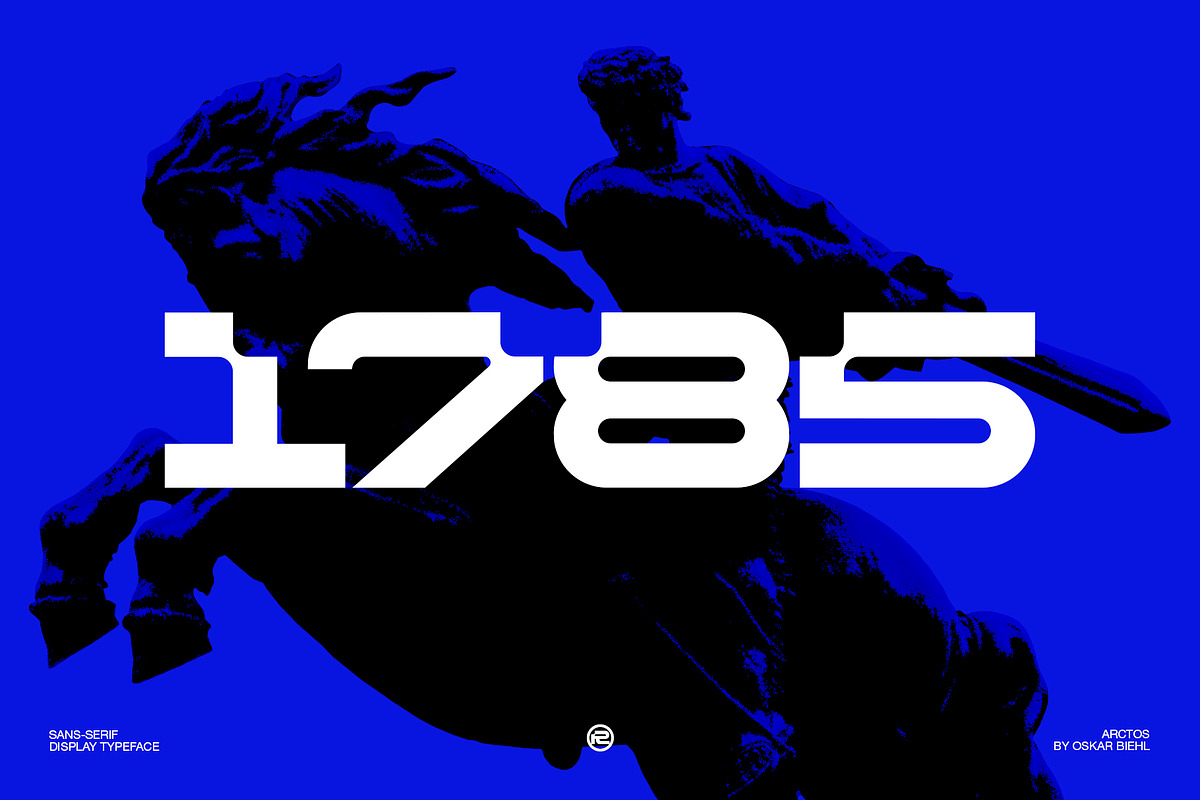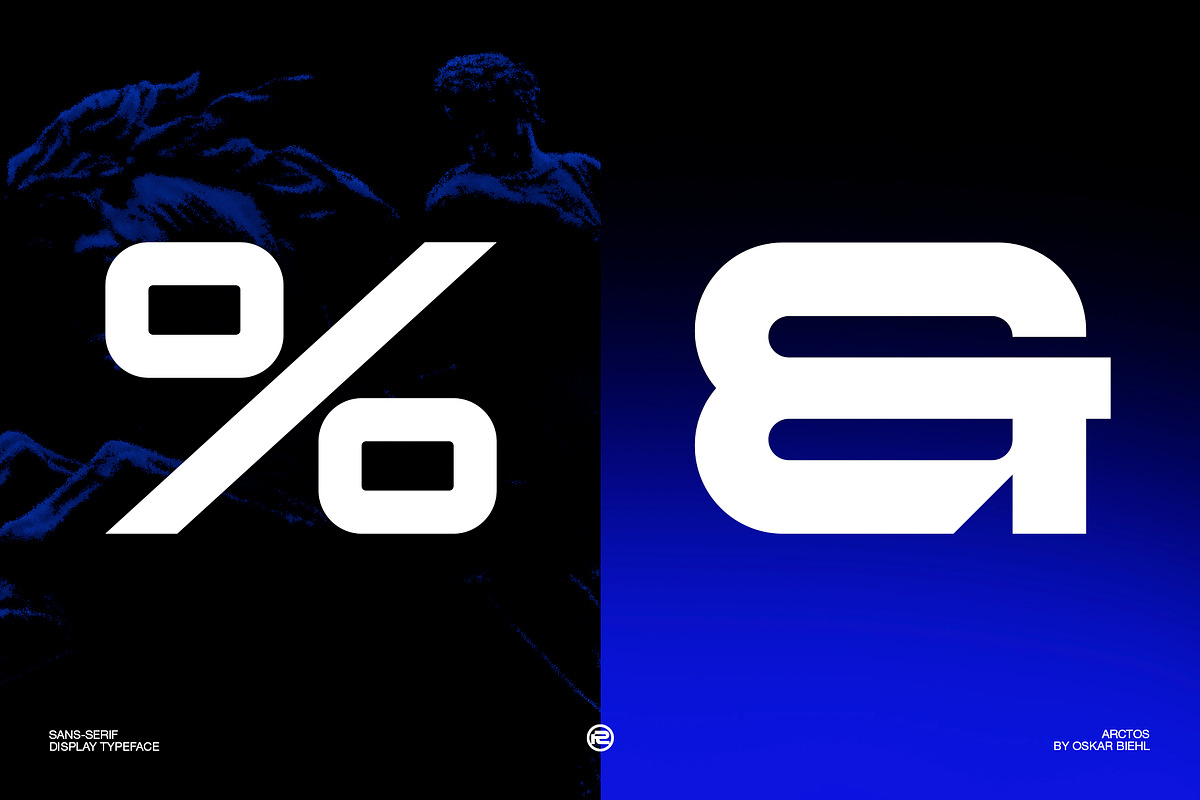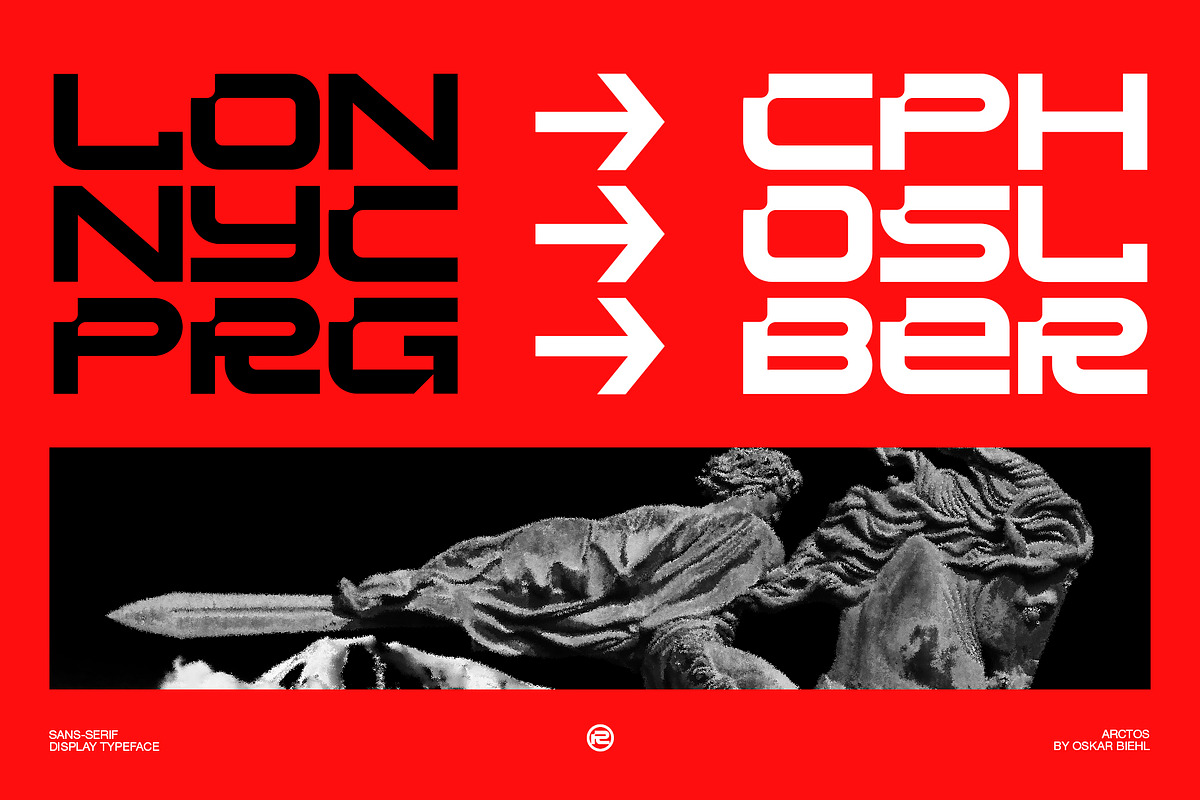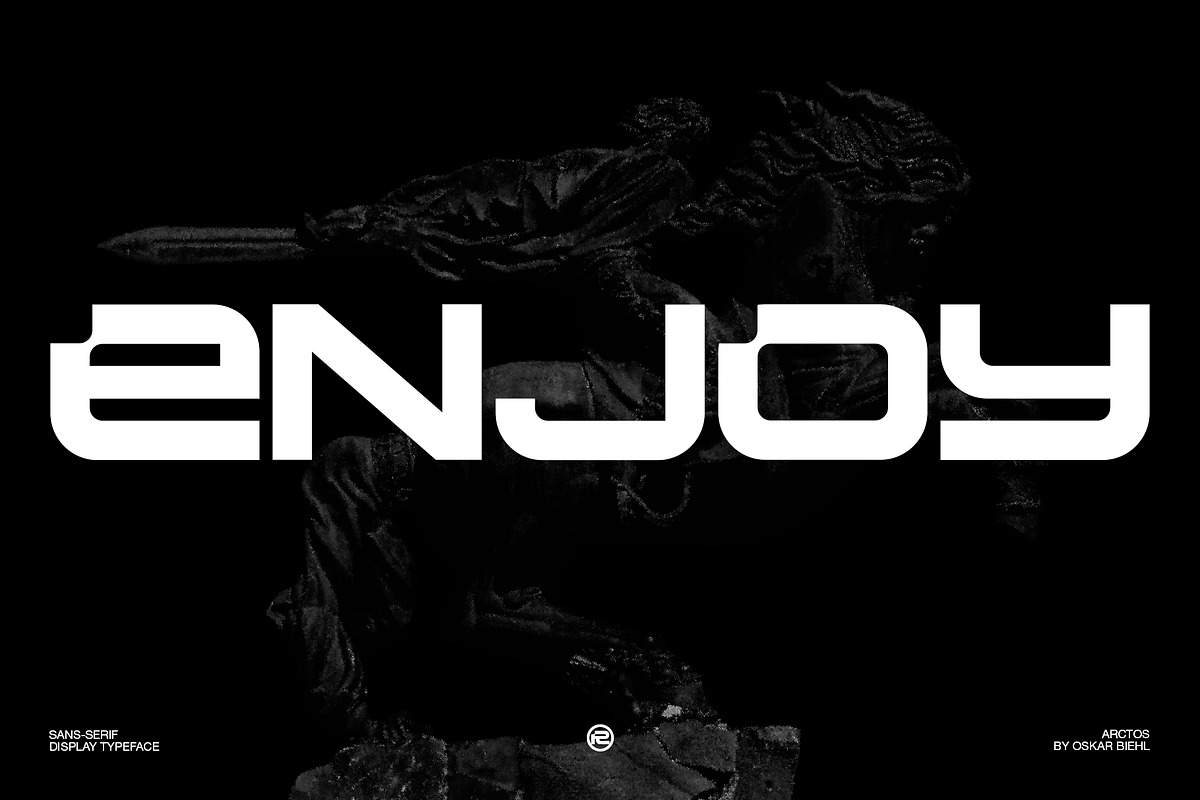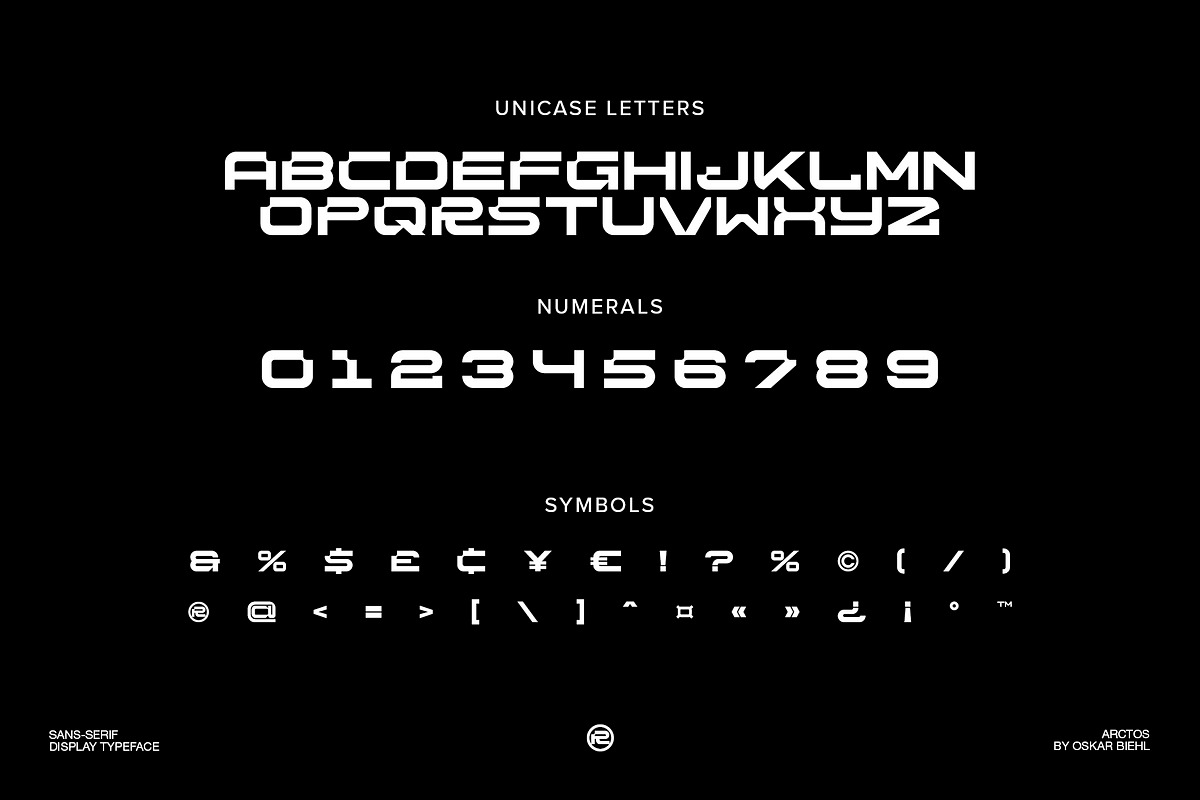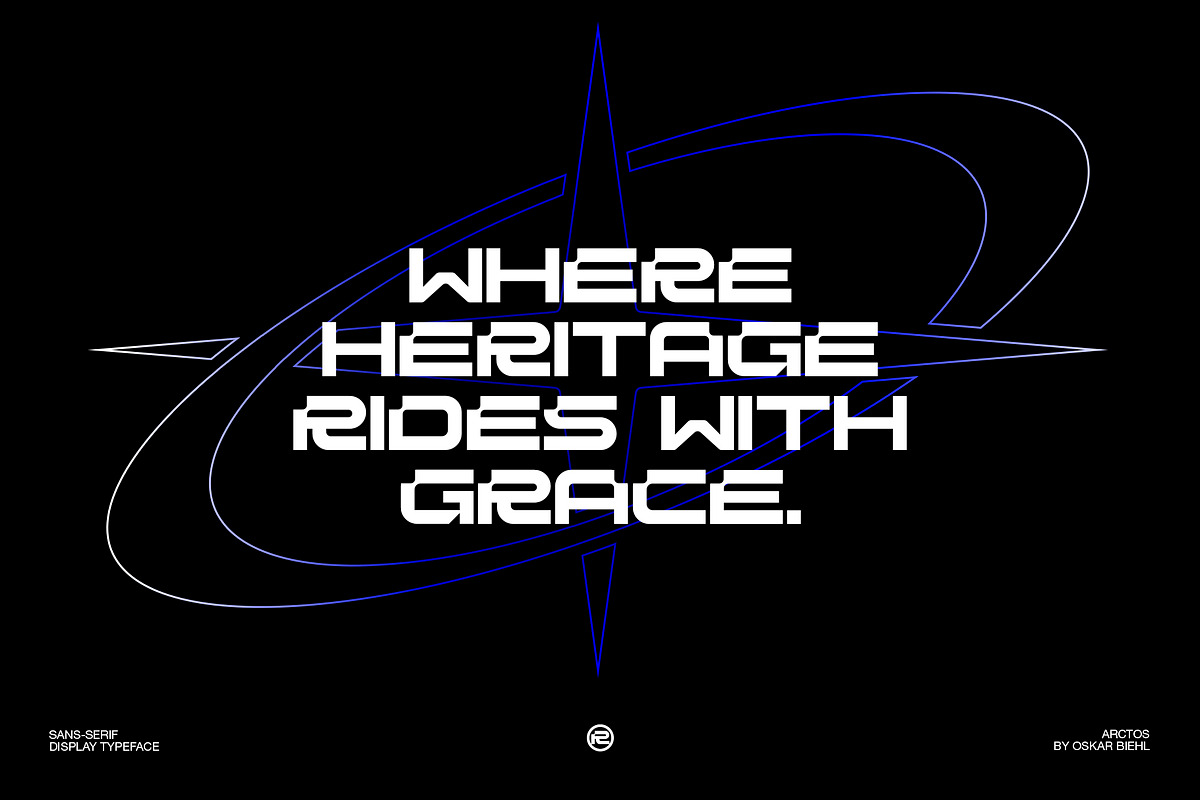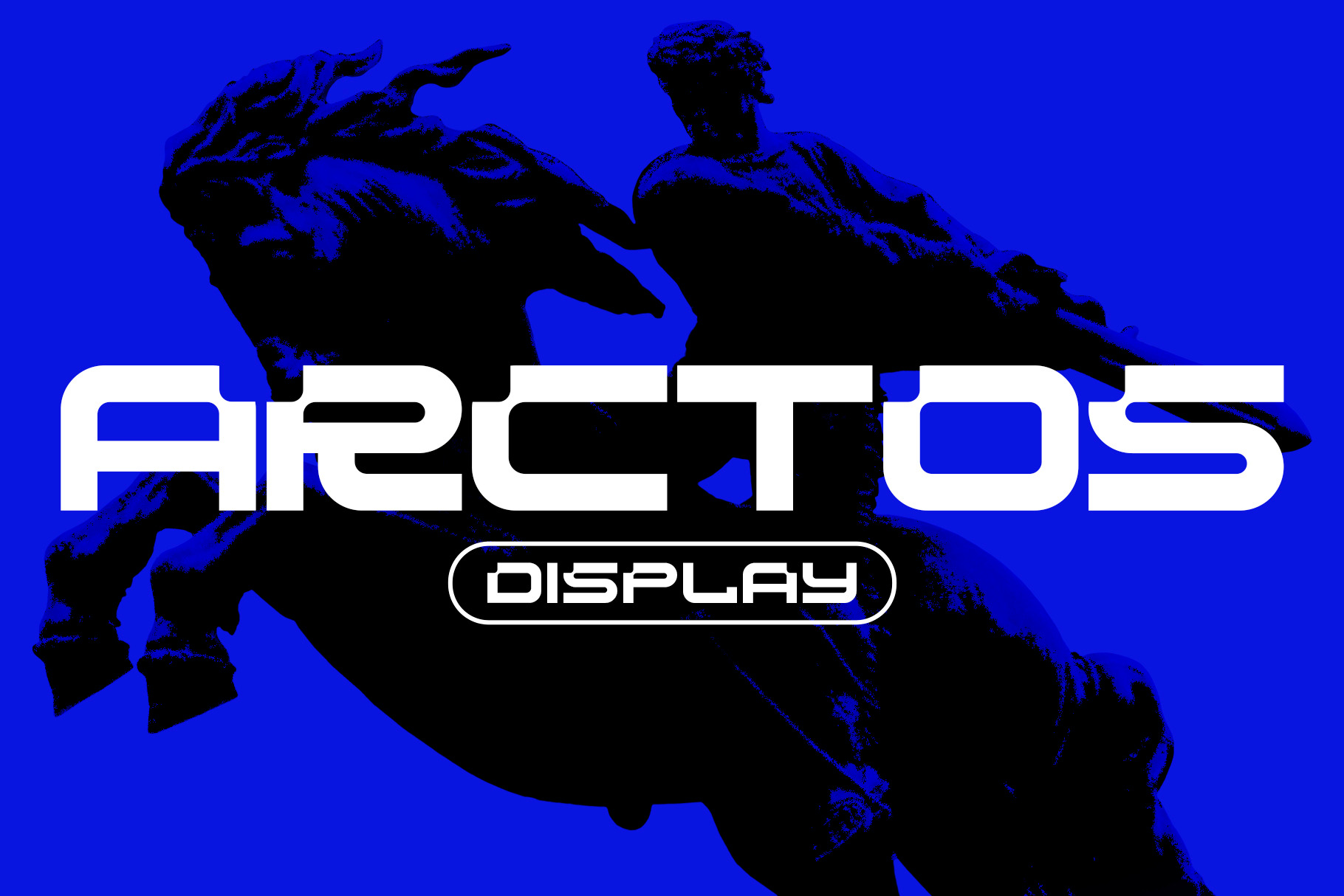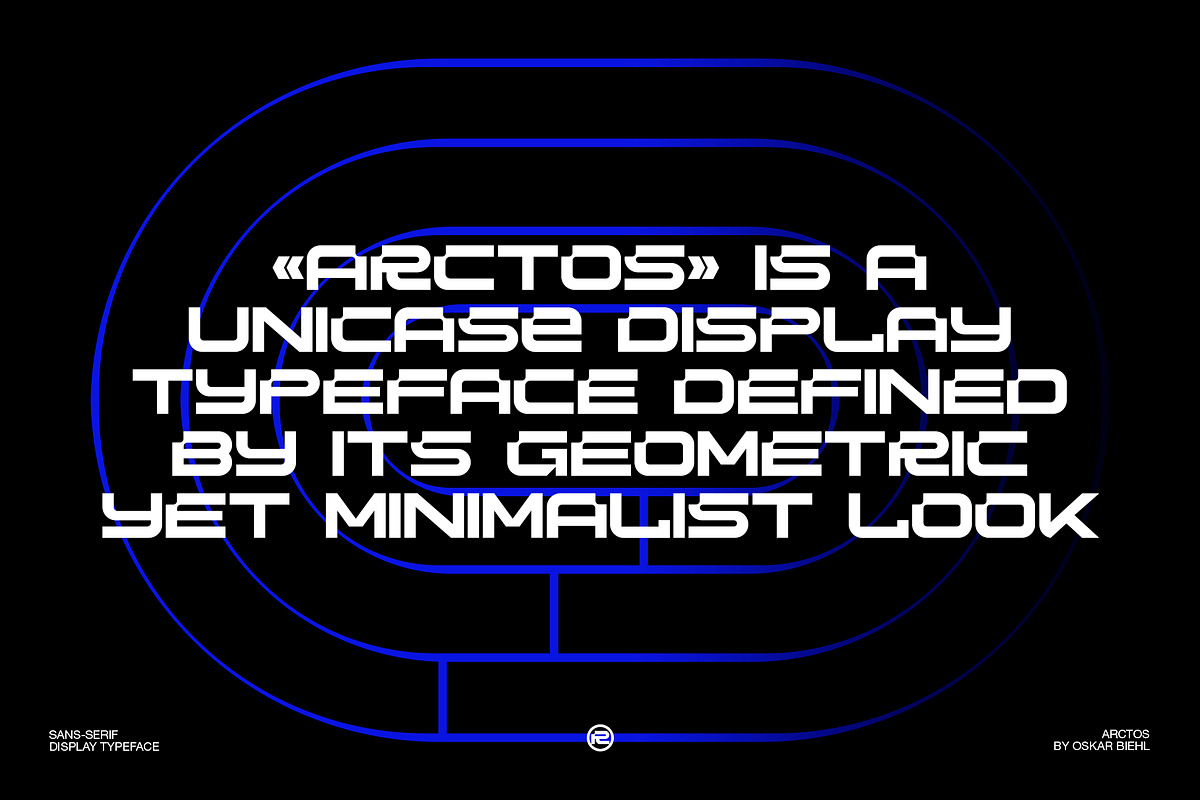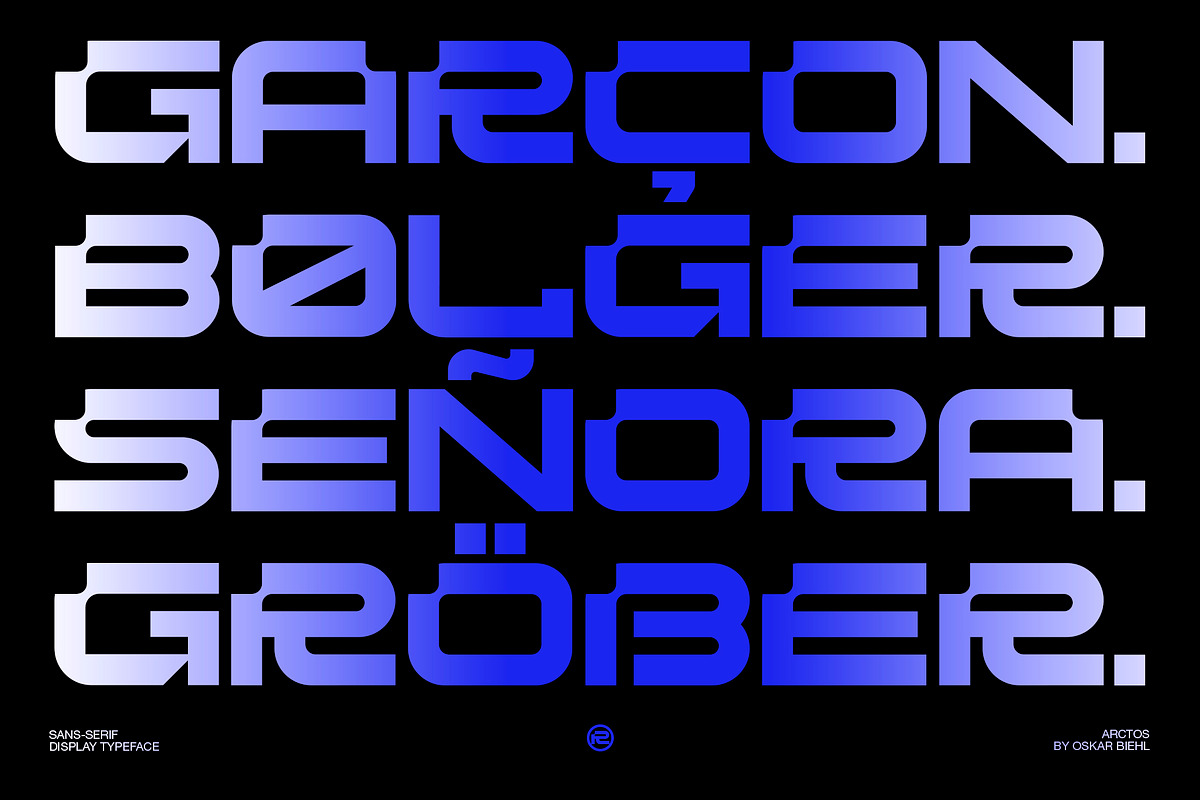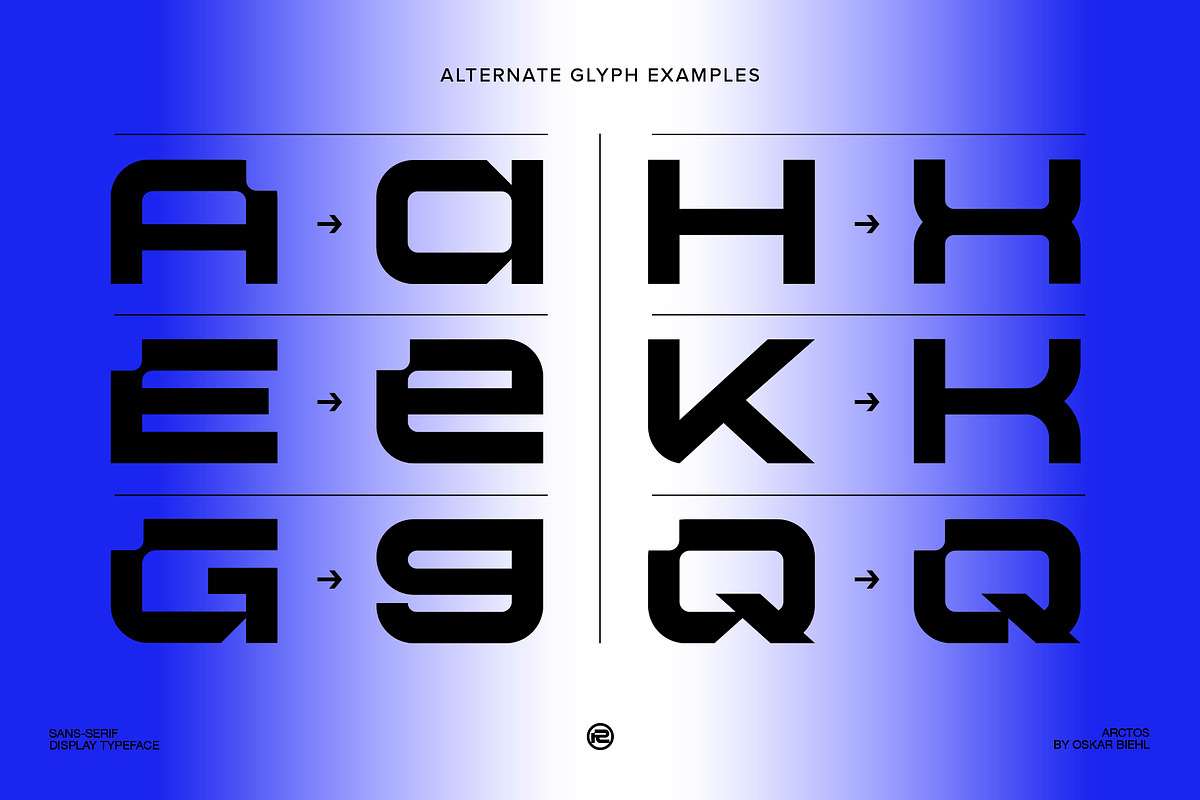
ARCTOS - Display Font
Arctos is a unicase display typeface with a geometric, minimalist aesthetic. It comes in a single weight and offers a range of alternate glyphs for select characters.
Arctos Features
- Single-Case Characters with Stylistic Alternates from Both Cases
- Numbers, Symbols, and Punctuation
- Range of Latin Extended Characters